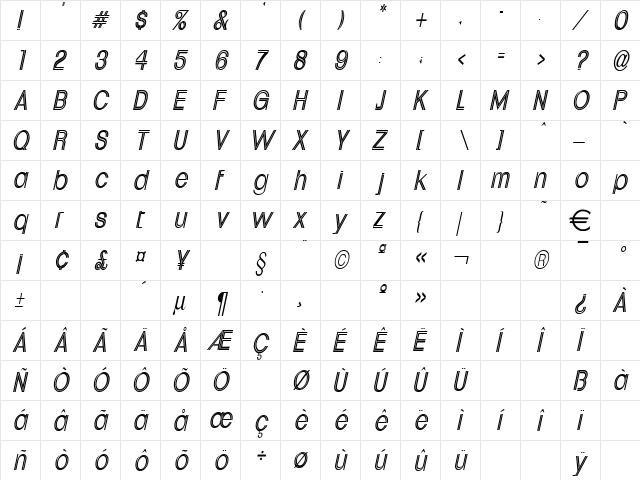
DowntownThin Italic
Design Context for DowntownThin Typeface
DowntownThin is a composed and adaptable typeface that performs quietly and consistently across a wide range of design contexts. Its italic angle brings a sense of urgency and motion to the letterforms. Its slender proportions lend an understated elegance to any composition.
Pro Tip: Use DowntownThin for emphasis, pull quotes, and subheadings where its slanted energy can add rhythm to the layout.